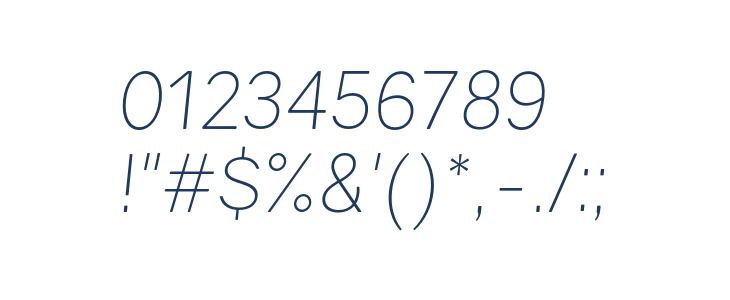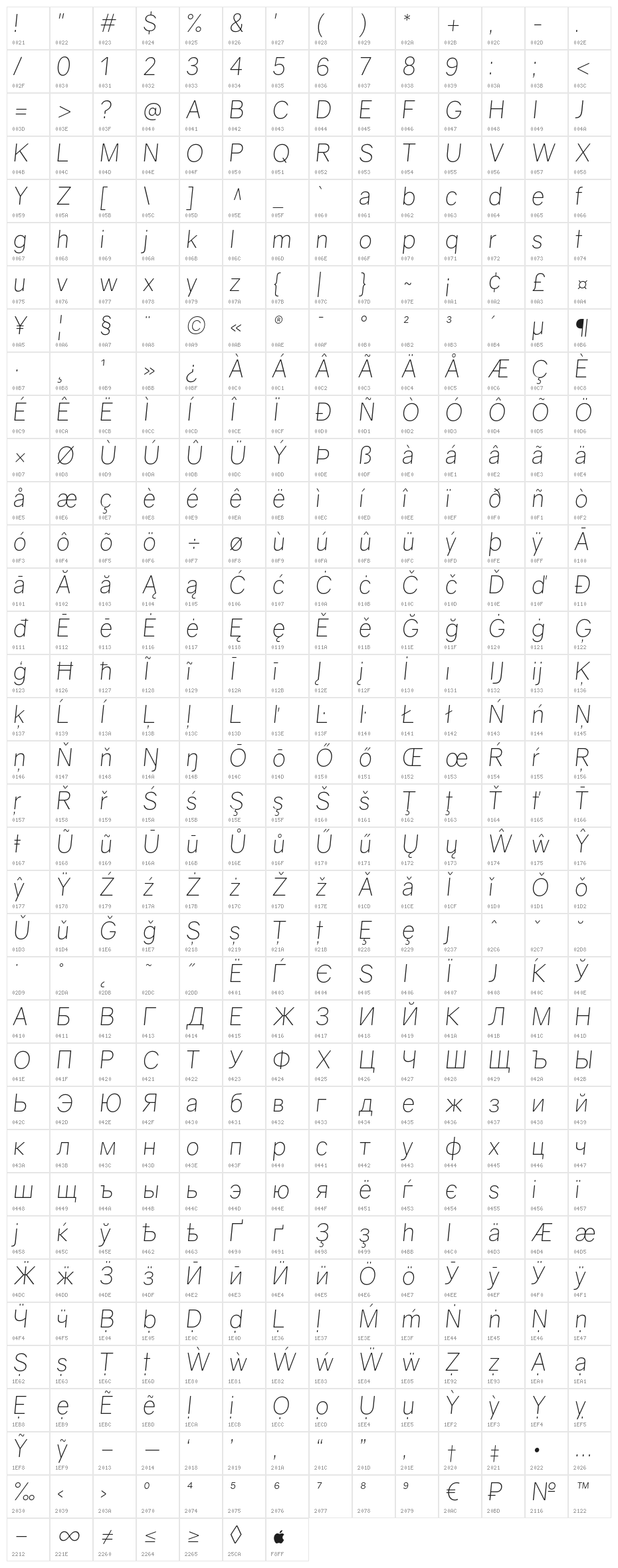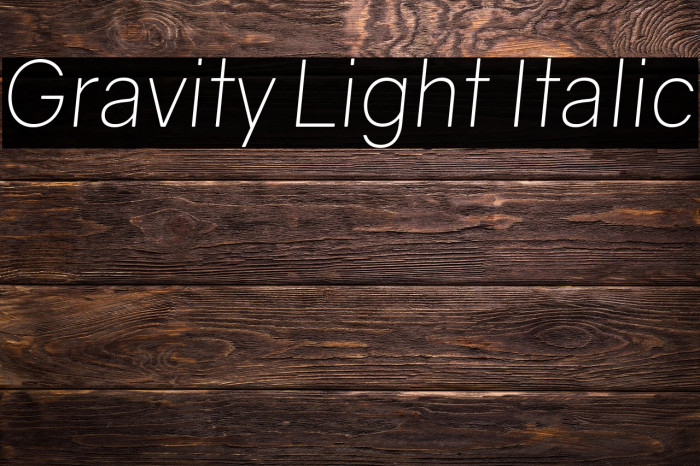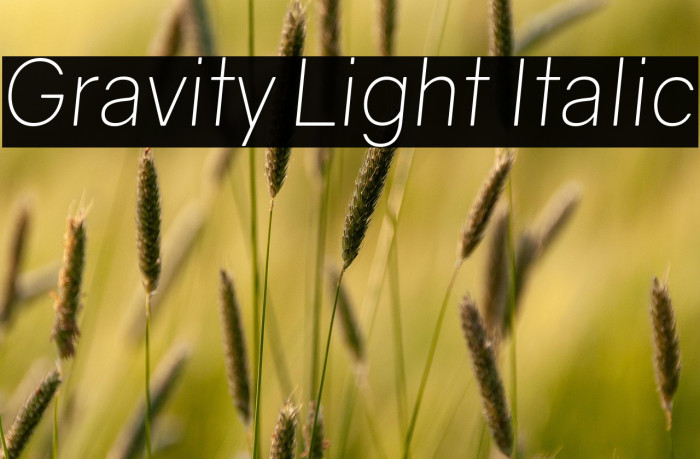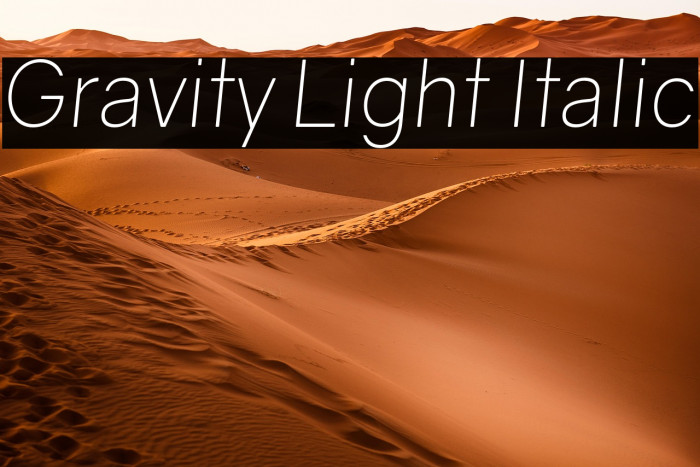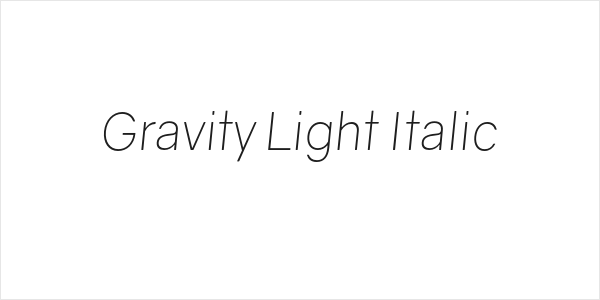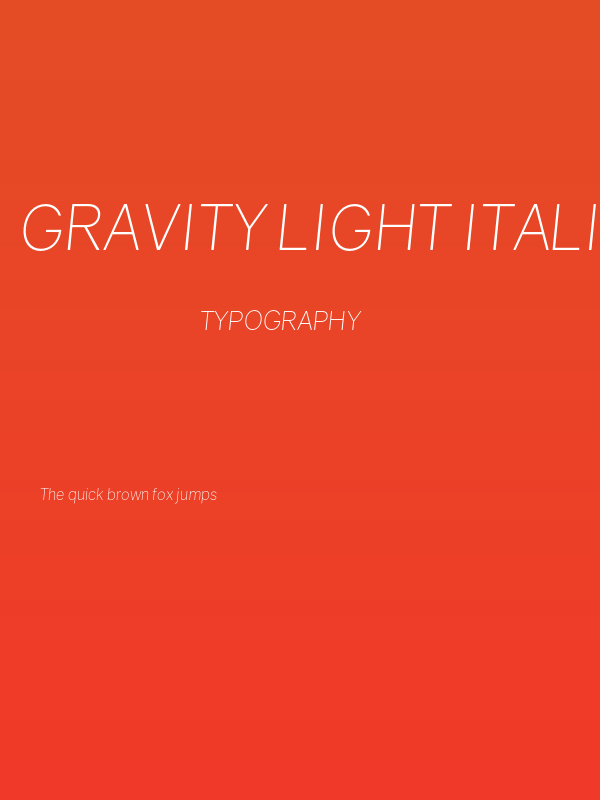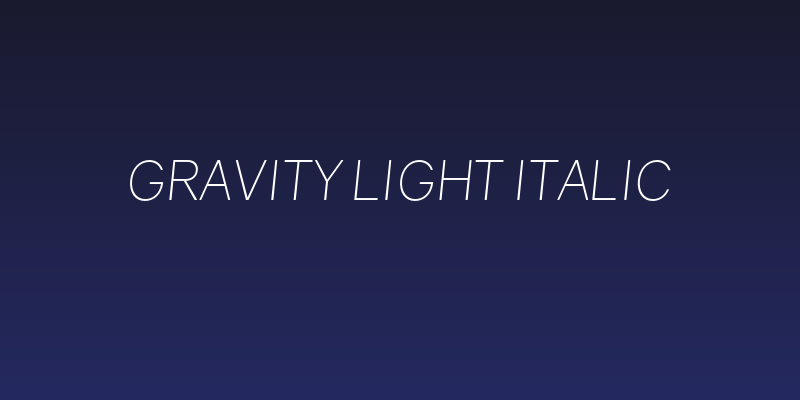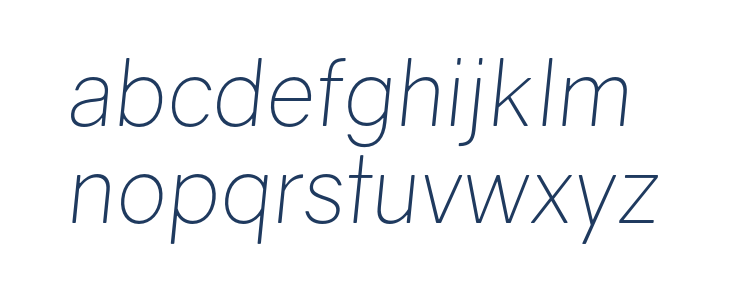
Gravity Light Italic Font
Gravity Light Italic Description
This font features a sleek, modern design with a light weight and italic style. The characters are elegantly crafted with smooth curves and a slight slant, giving it a sophisticated and contemporary appearance. The uppercase and lowercase letters maintain a consistent style, while the numerals are clear and easy to read. The special characters are well-integrated, making this font versatile for various applications. Its clean lines and minimalistic approach make it suitable for projects that require a touch of elegance and modernity.